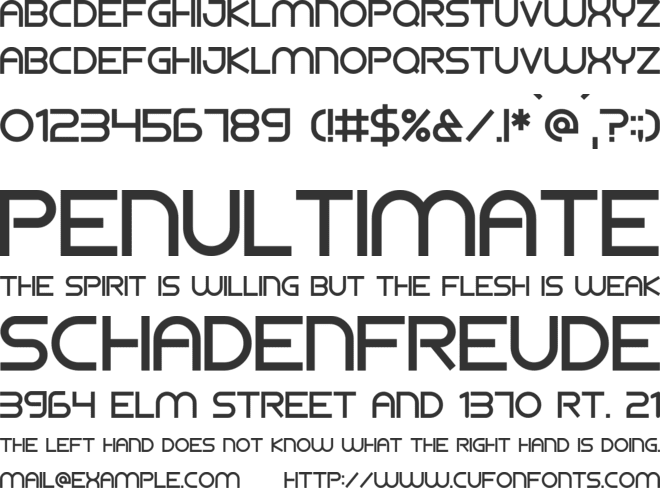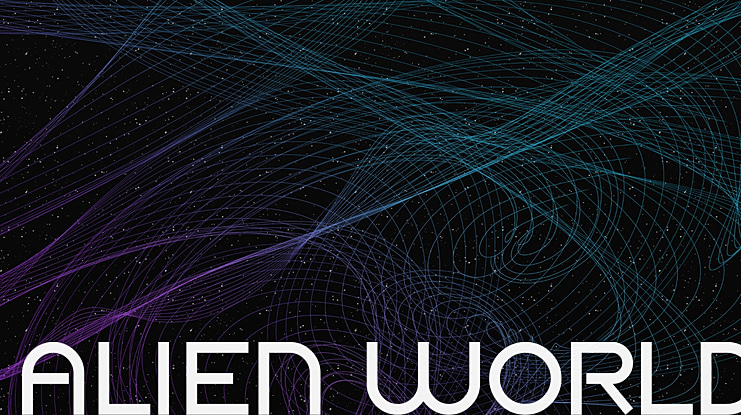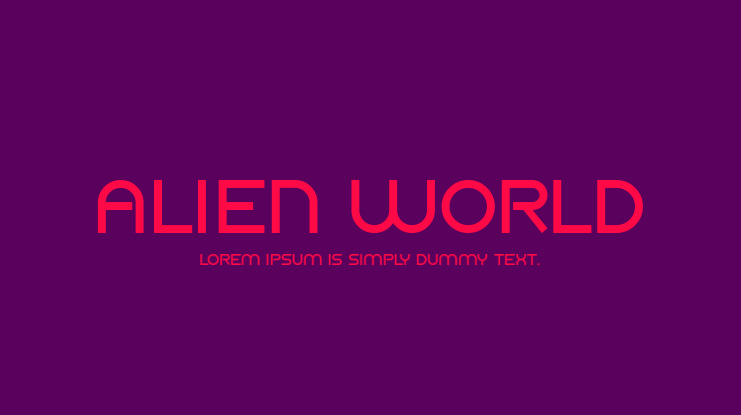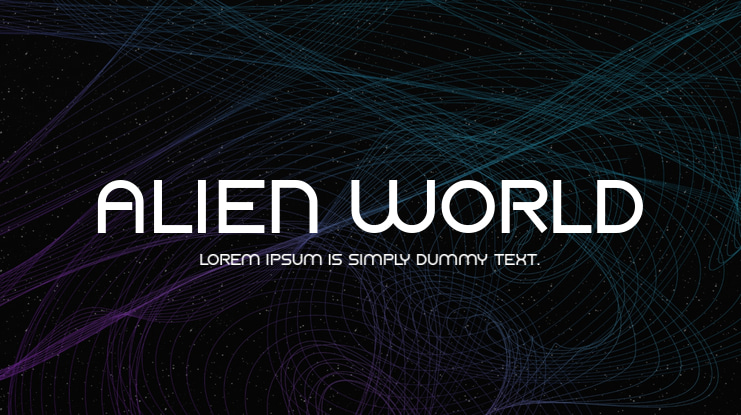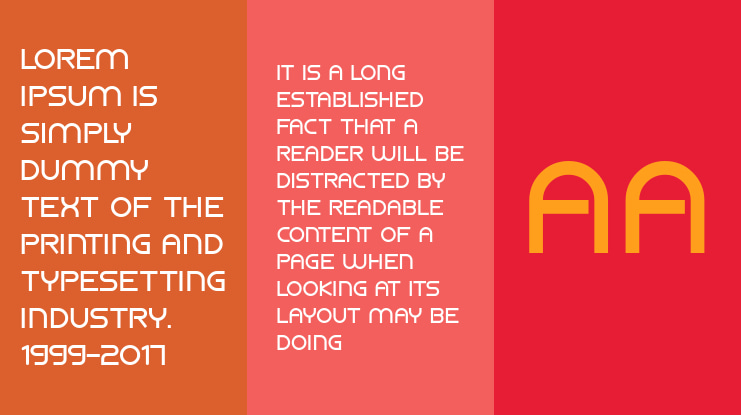
Alien World Font Family
Joseph Dawson
Alien World is a cool, retro sci-fi display font. This dynamic and minimal font will add a futuristic touch to all your designs and themes.